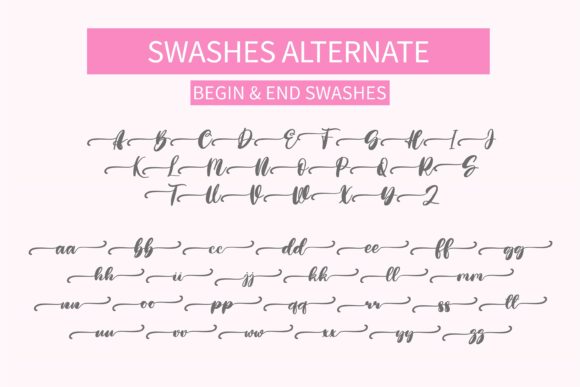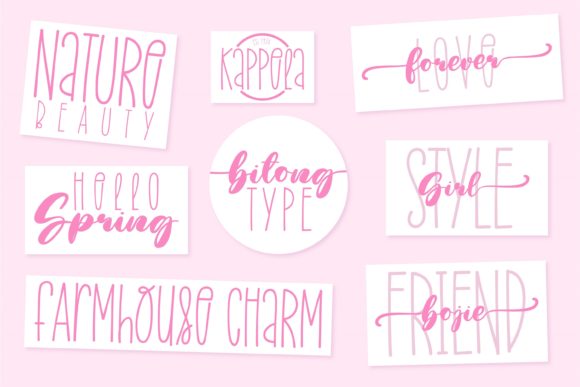
Silly Goose Time Font
db-ku.com - Script & Handwritten -- Silly Goose Time is a duo-styled (handwritten and sans serif) font that feels equally charming and delicate.Silly Goose Time is PUA encoded which means you can access all glyphs and swashes with ease. You can successfully use it for cards, wedding designs, local signs, branding, logos, quotes, photography projects, birthday cards, and so much more!